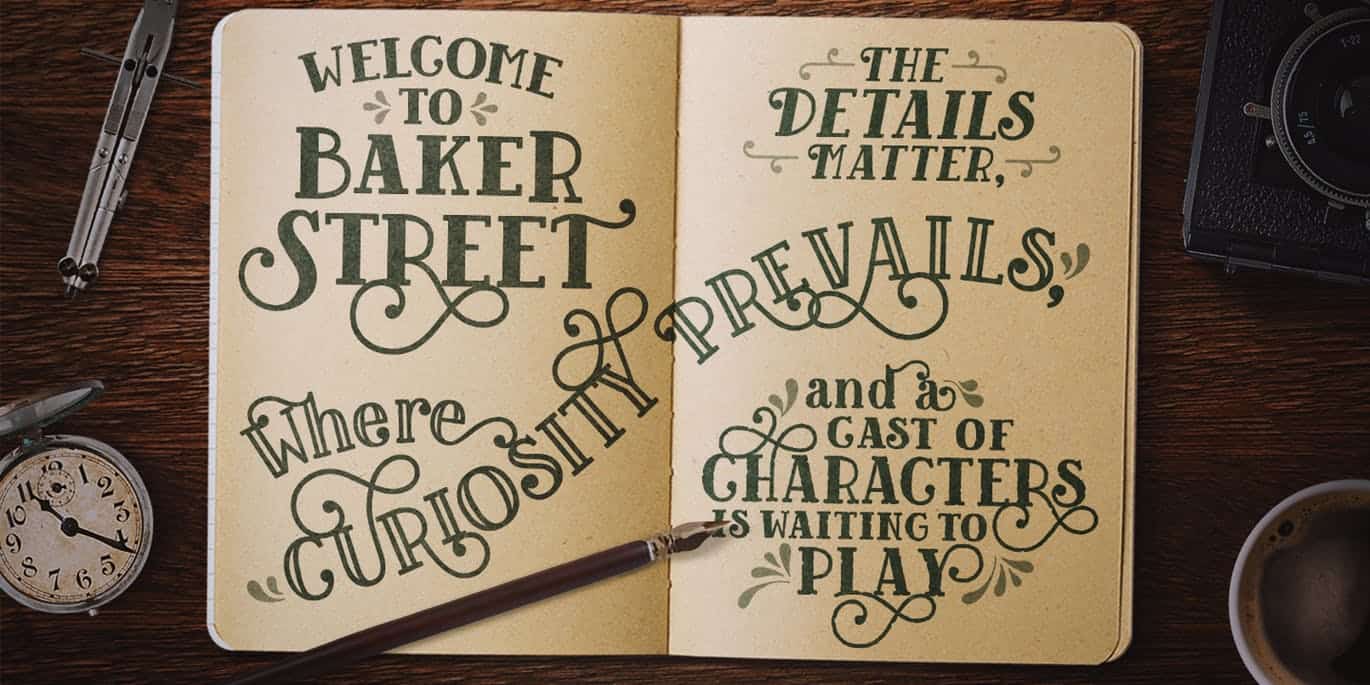
Baker Street Rough Font
Baker Street Rough Font is a Westminster typeface that is similar to the black font. That is additionally widely used for its ambitious and italic function.
It has an entire eight type of the family collectively with belwe font. And the numbers of peoples in the direction of the globe have advanced. This is the font that makes the abilities appealing.
Style Of Baker Street Rough Font Free